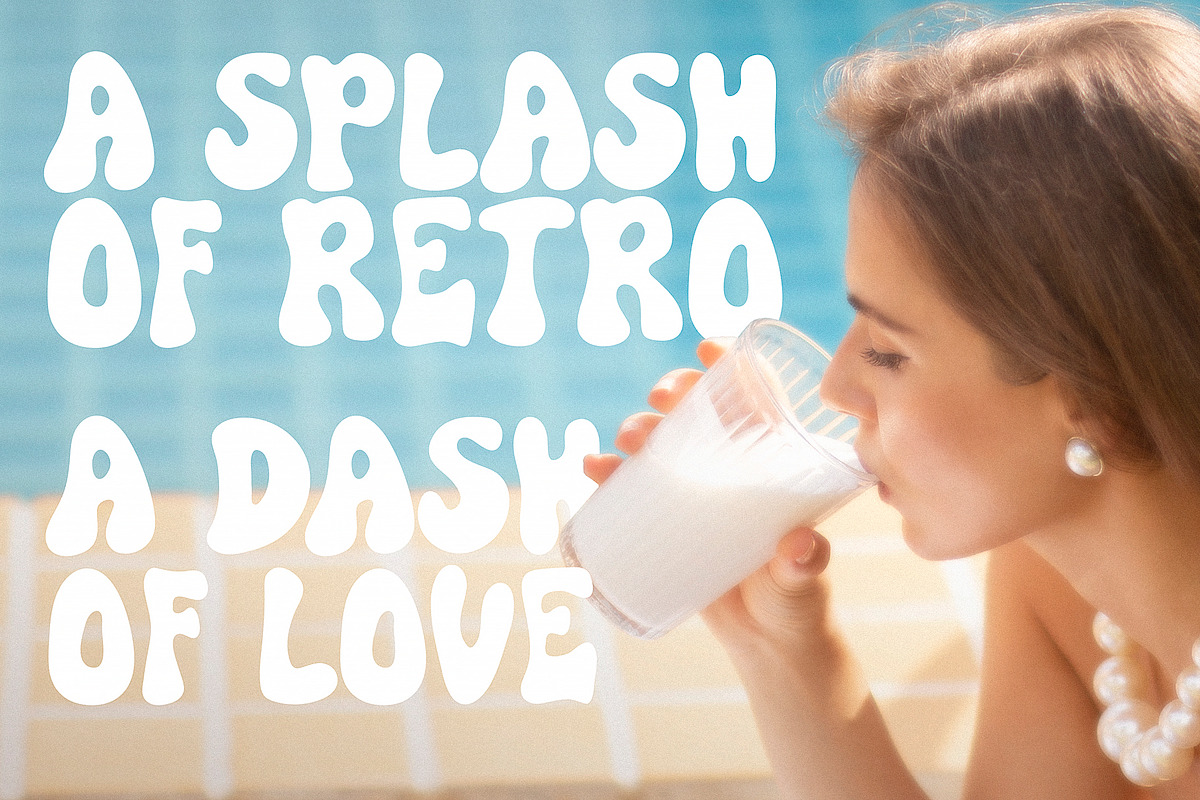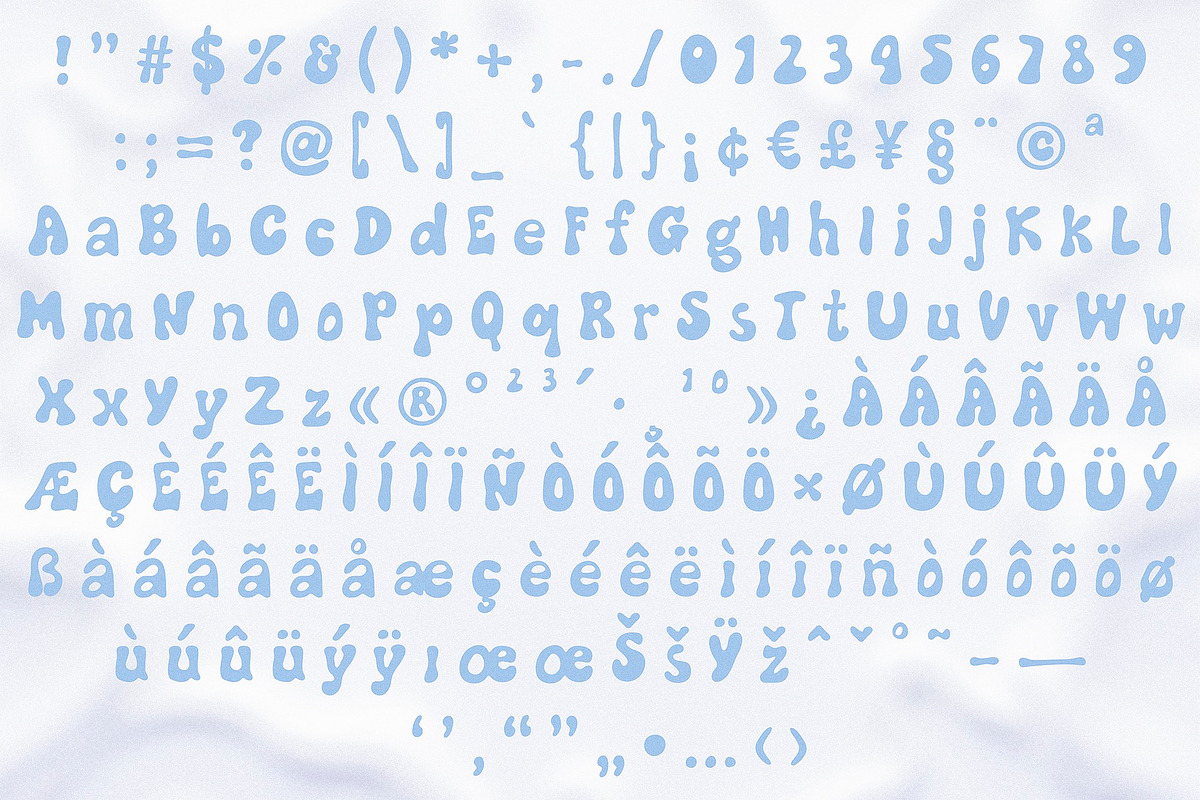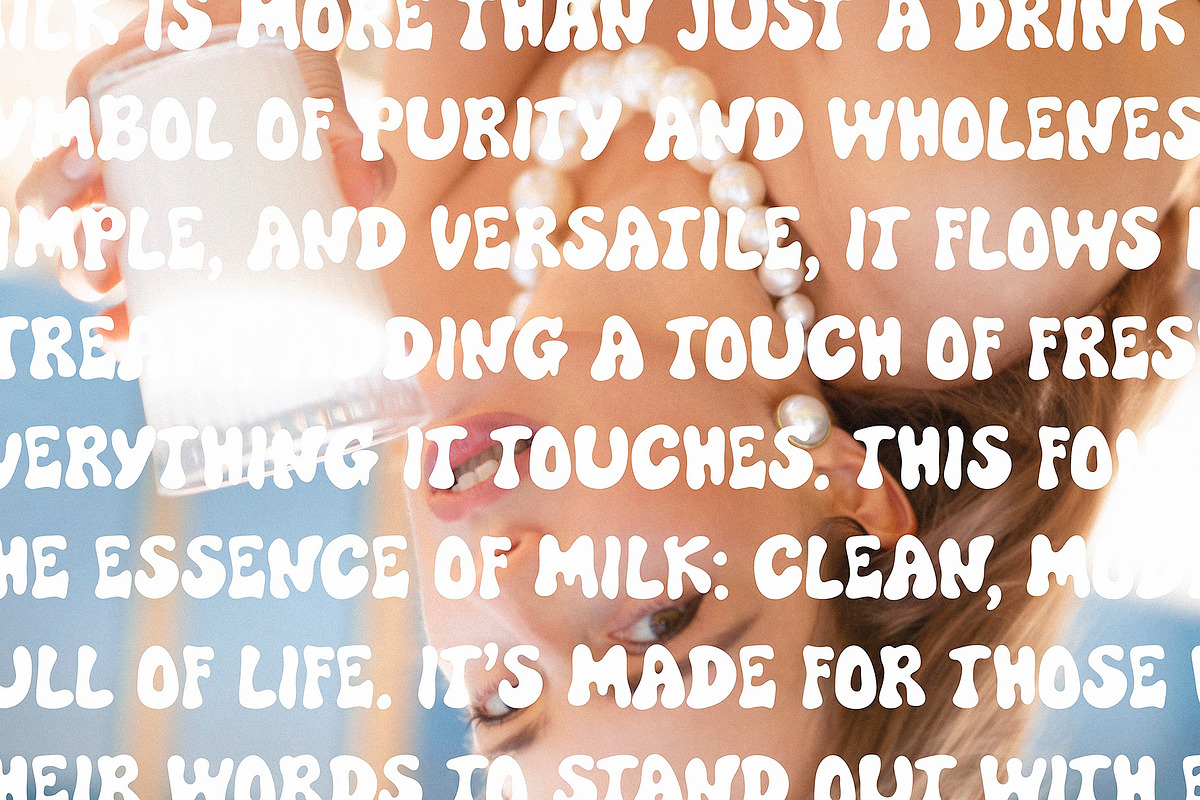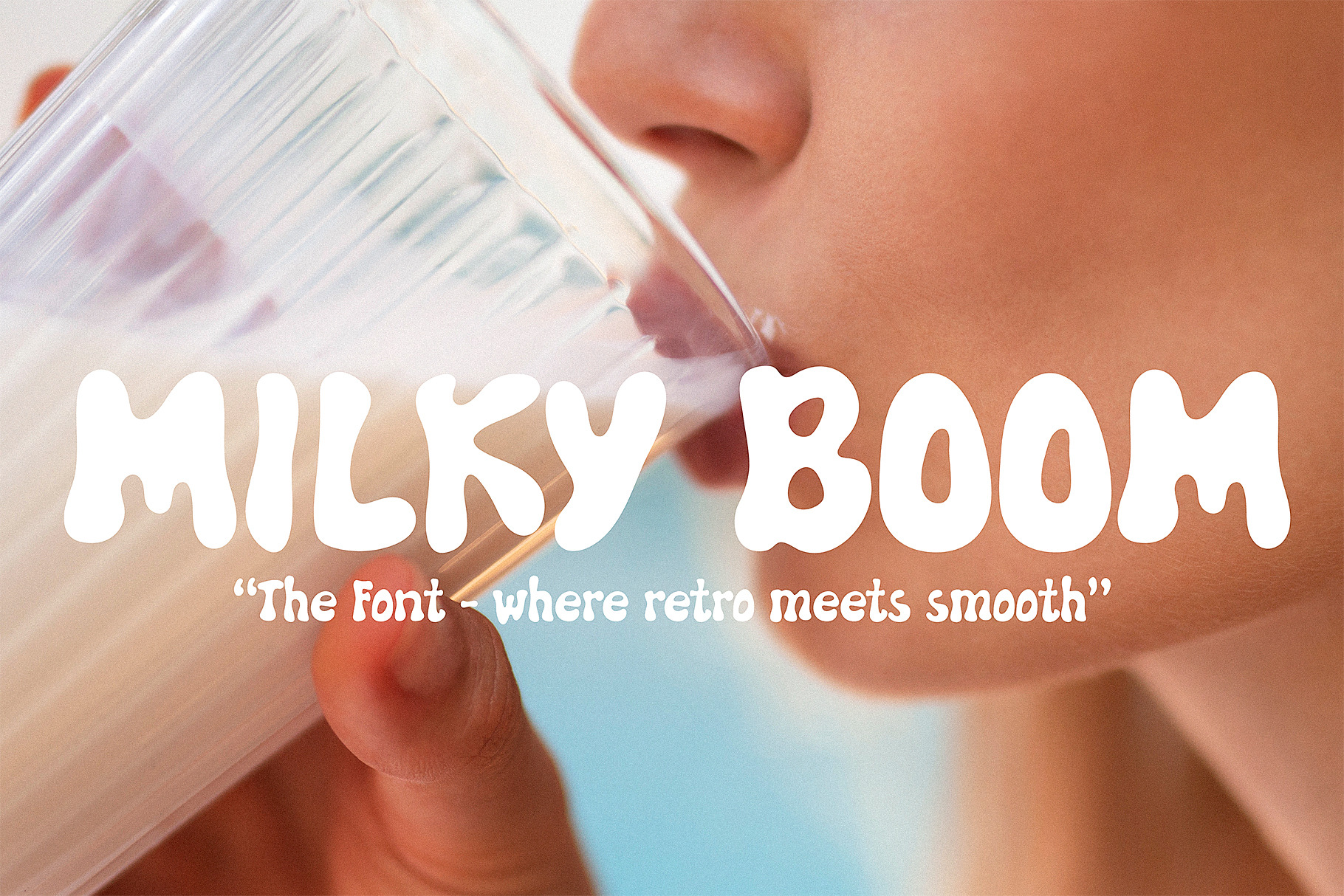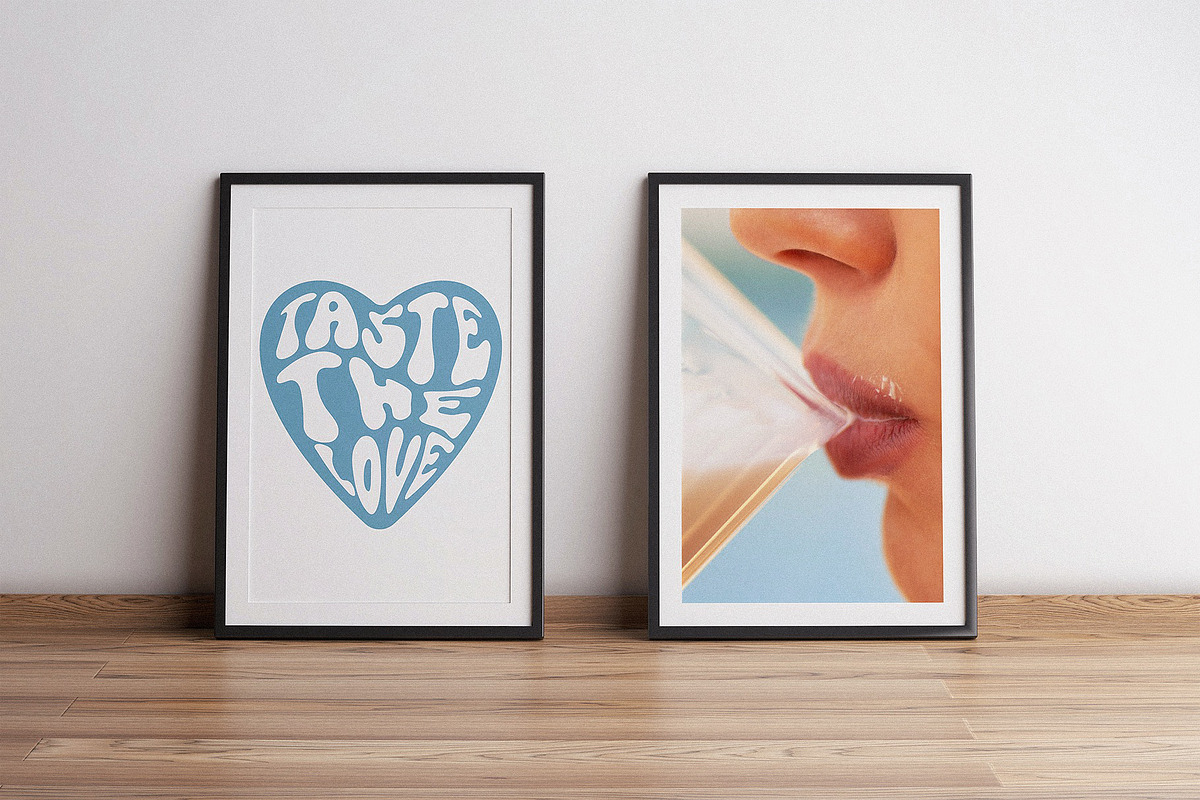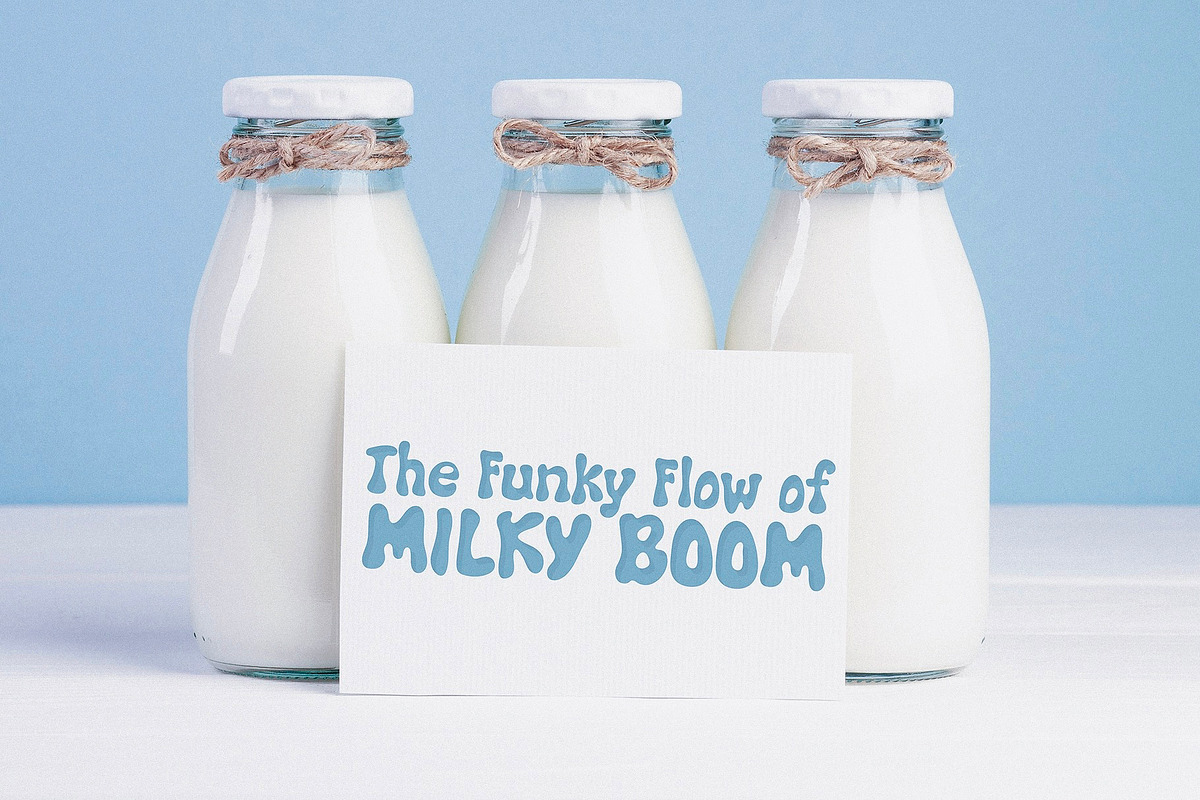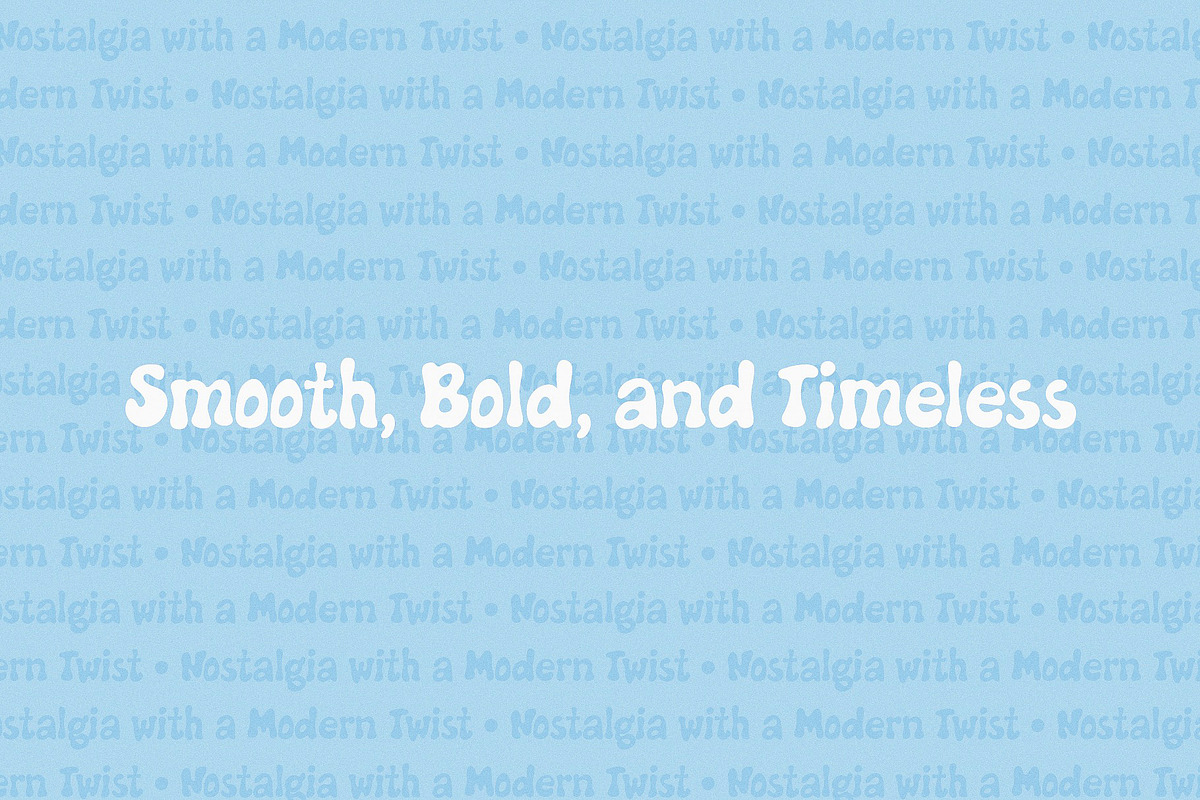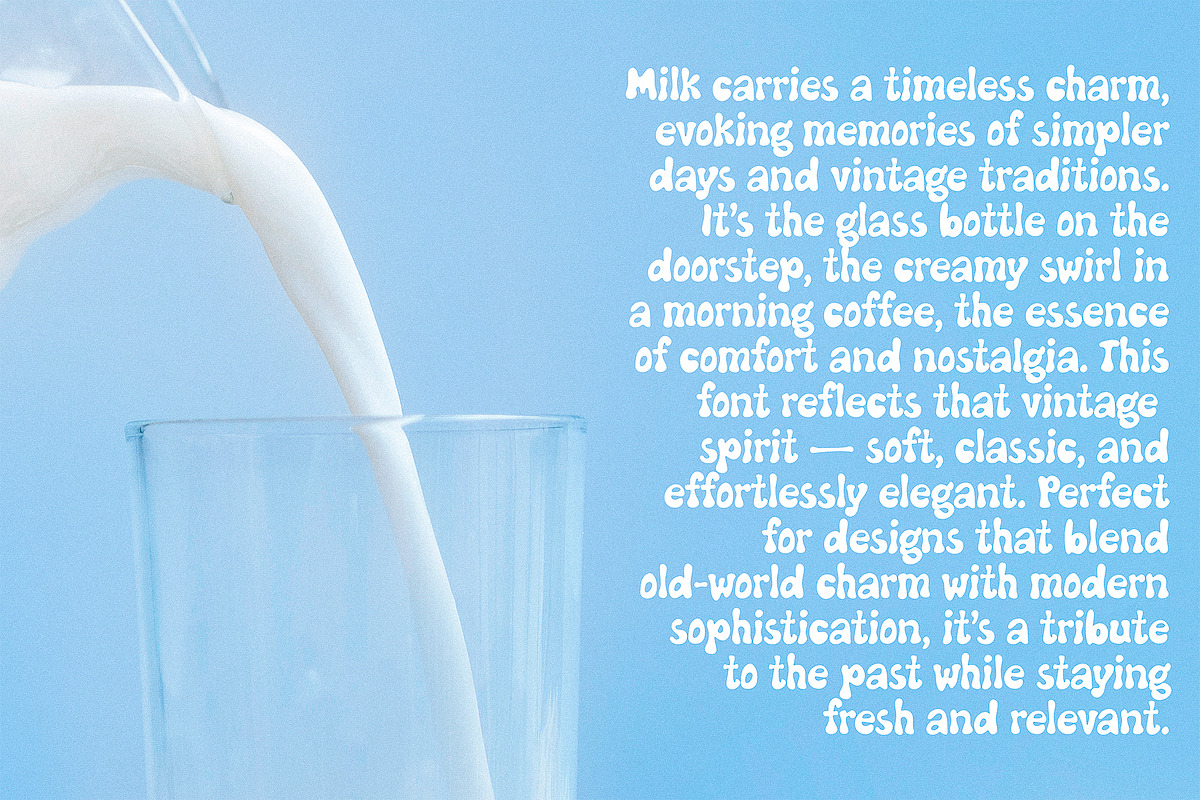
Milky Boom - Retro Groovy Font
Milky Boom Font – A Groovy Blast from the Past!
Step into a world of retro charm with Milky Boom, a playful and rounded font inspired by the vibrant energy of the 70s! With its smooth, flowing lines and groovy curves, this typeface radiates positivity and nostalgia, making it perfect for anyone looking to add a touch of vintage cool to their designs.
Whether you’re working on bold headlines, funky posters, or trendy social media graphics, Milky Boom will give your project that effortlessly stylish and approachable vibe. The font includes all essential characters, making it super versatile and easy to use for any creative idea.
Bring the free-spirited essence of the hippie era into the modern day with Milky Boom—your new favorite font for creating timeless, feel-good designs.